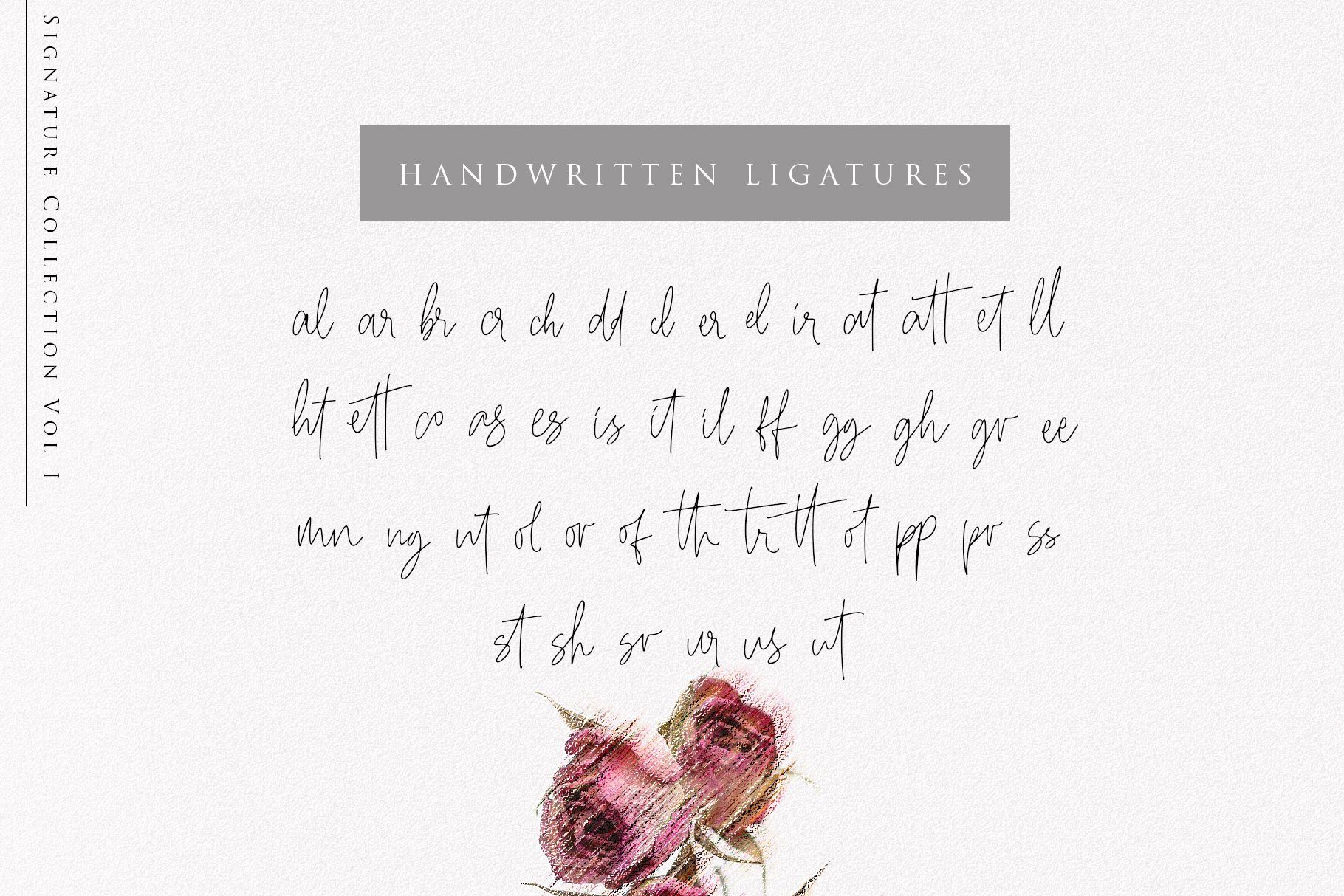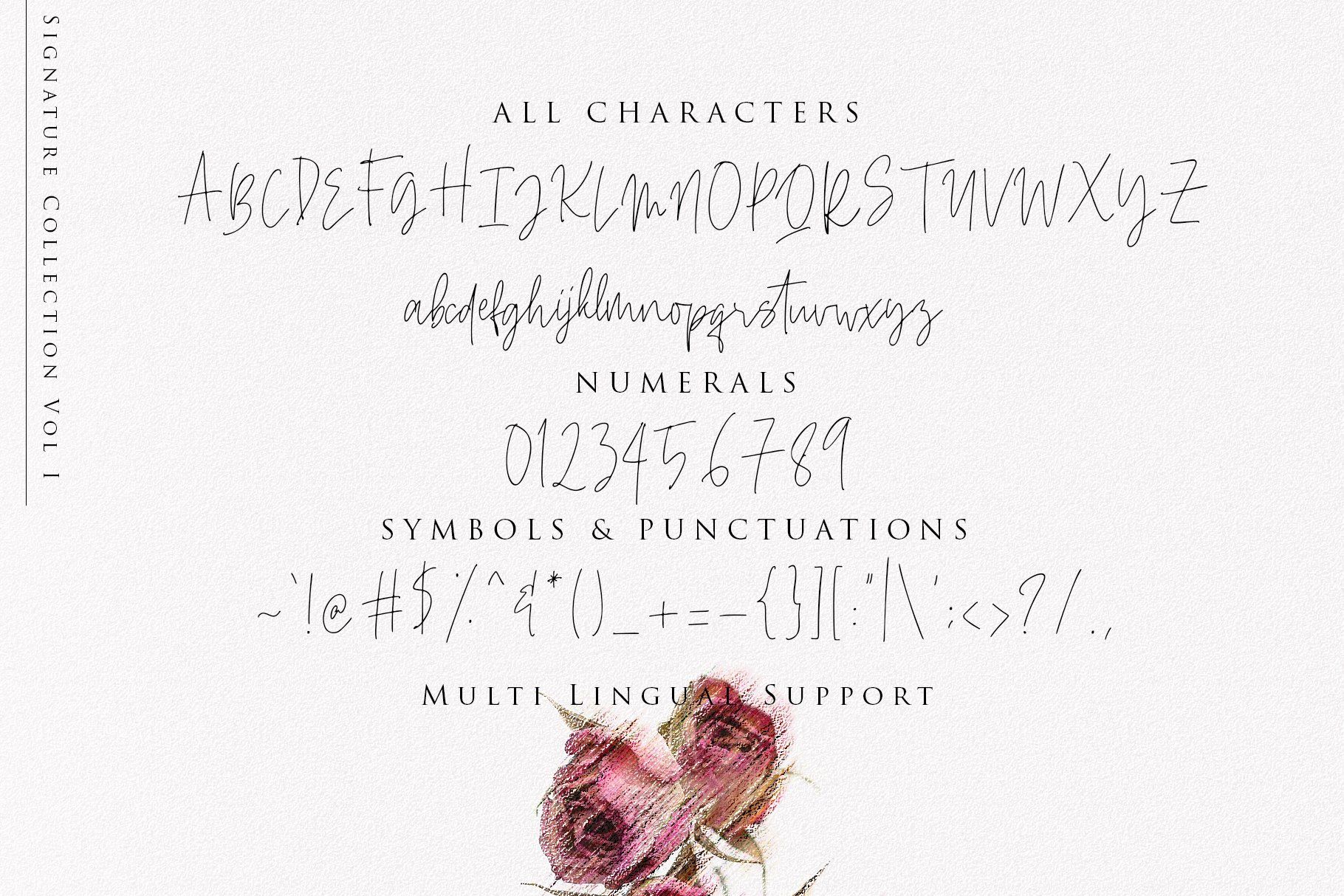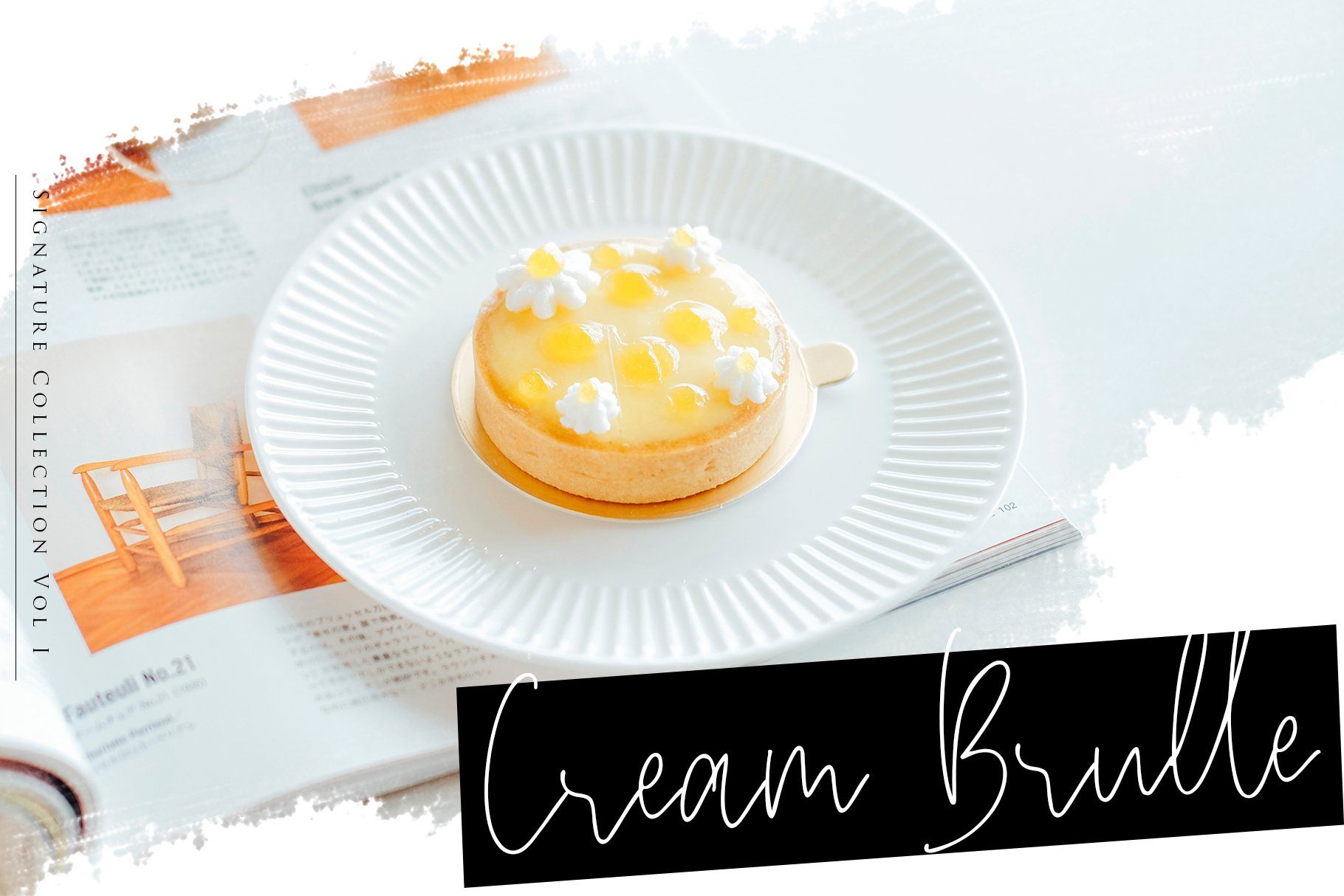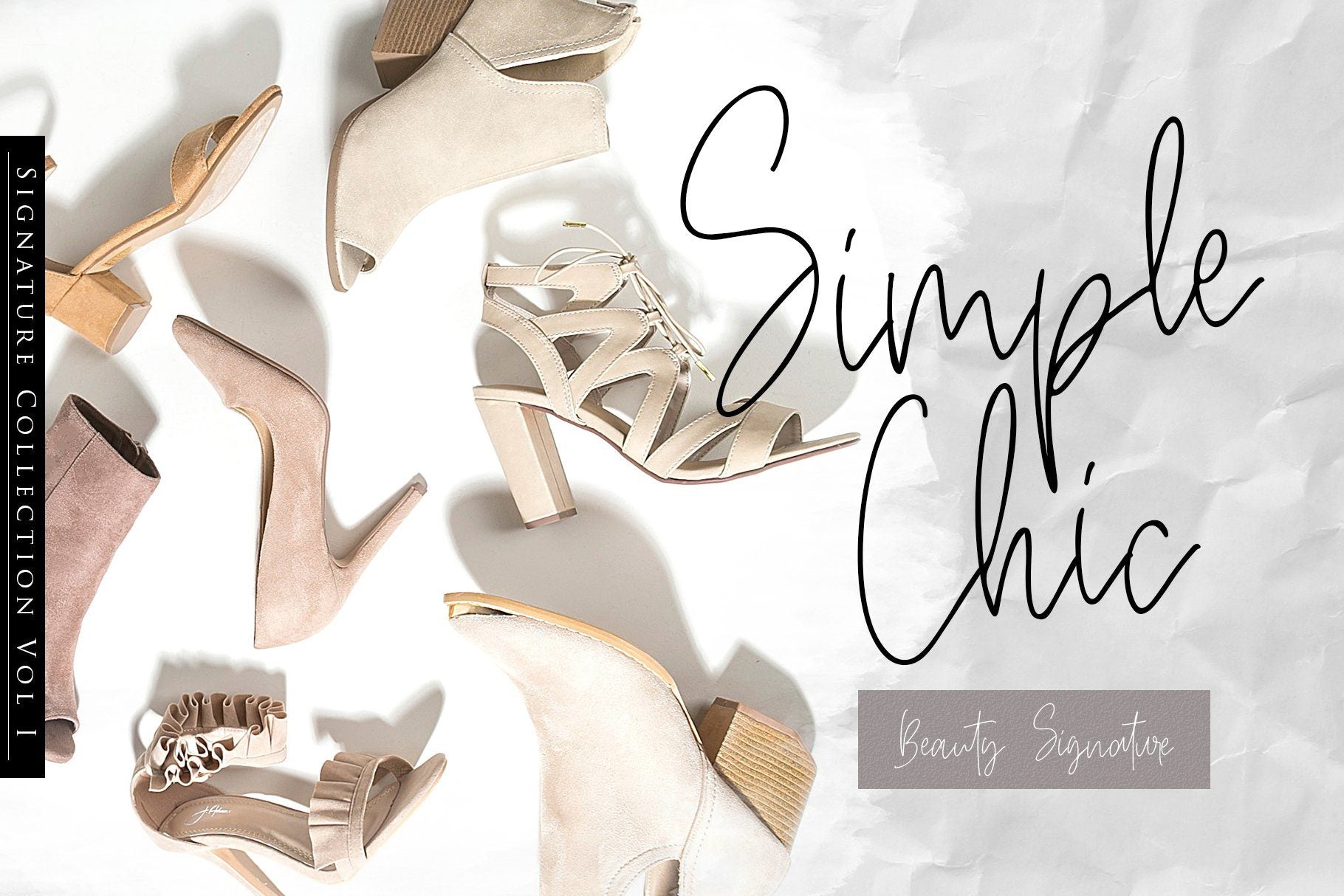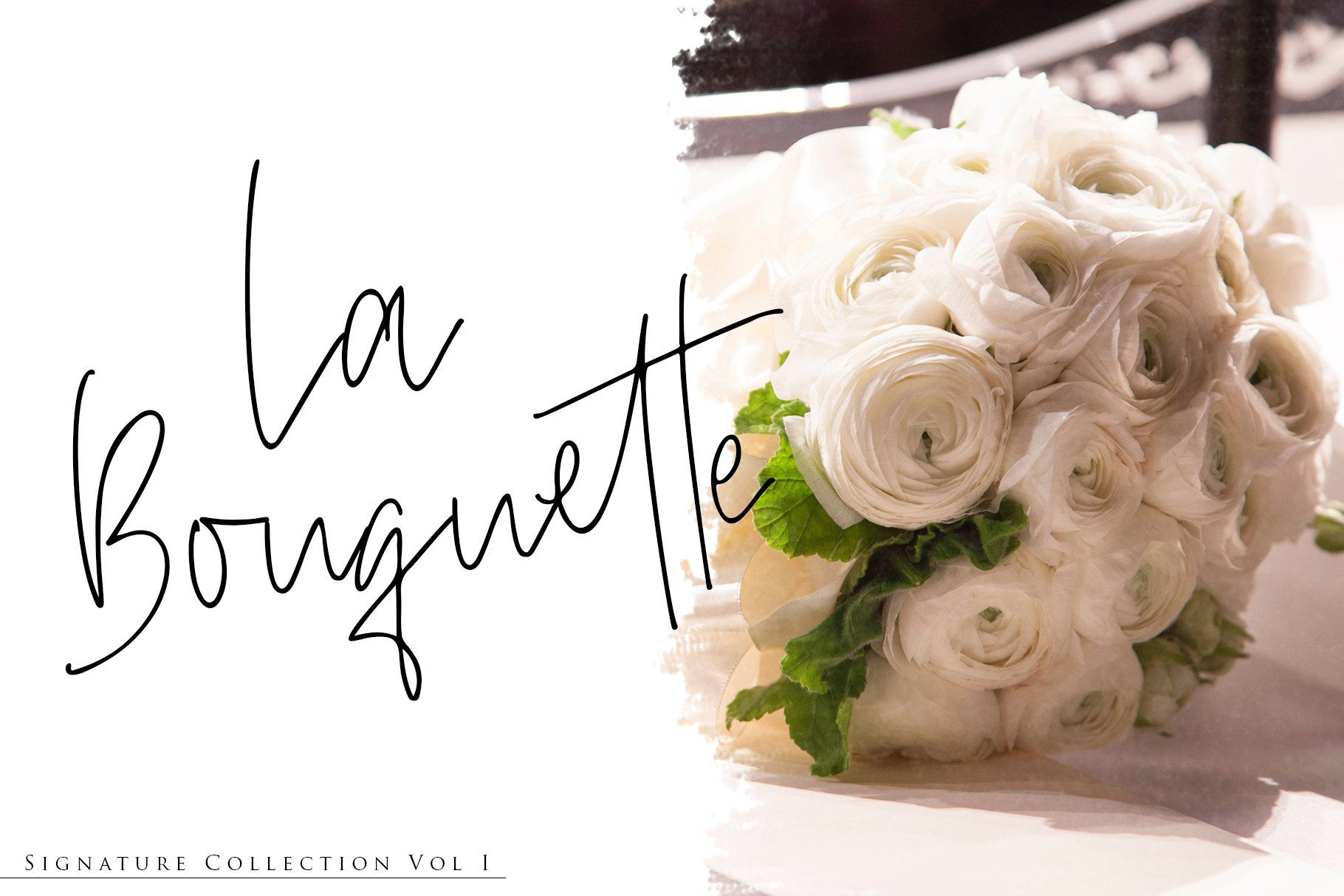
About Beauty Signature – Handwritten Font
Beauty Signature, the handwritten signature font It’s look natural and real writing by yourself, that give an authentication for every need. Pair with extra 46 handwritten ligatures and 26 underline swashes to make your design more catchy and gorgeous. Great to applied on your personal stuffs, such a wedding cards, your blogs or website, crafting, social media posts, and also looks great to improve your business logos, branding, magazine layout, and for any kind of promotion stuffs. Features : Contains standard basic character set : uppercase, lowercase, numeric and symbols Extra 46 ligatures (al ar br cr ch dd cl er el ir at att et ll ht ett co as es is it il ff gg gh gr ee mn ng nt ol or of th tr tt ot pp pr ss st sh sr ur us ut ) Extra 26 underline swashes Easy to use, make sure your software has the opentype capabilities. Files : Beauty Signature OTF, TTF WOFF Beauty Signature Swash Line OTF, TTF, WOFF Please kindly send us direct message for any questions or issues about our products, thanks for every support, hope you like it and stay creative!